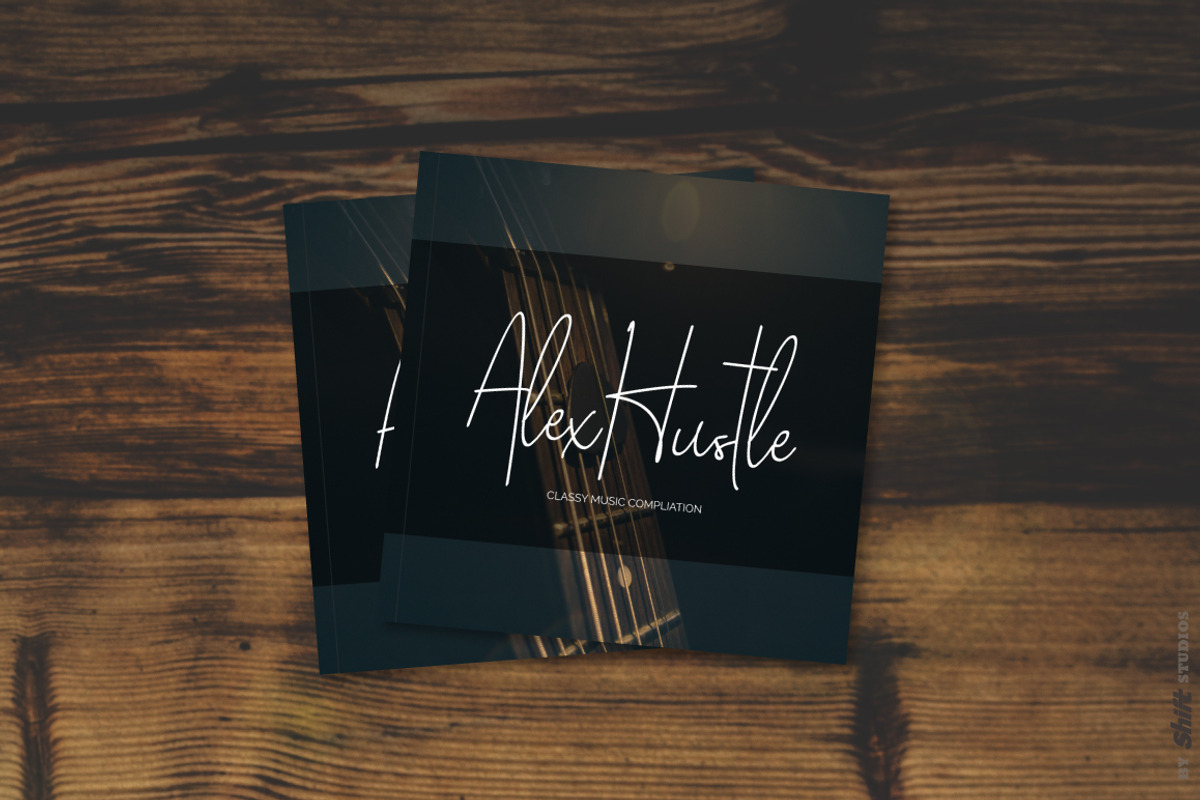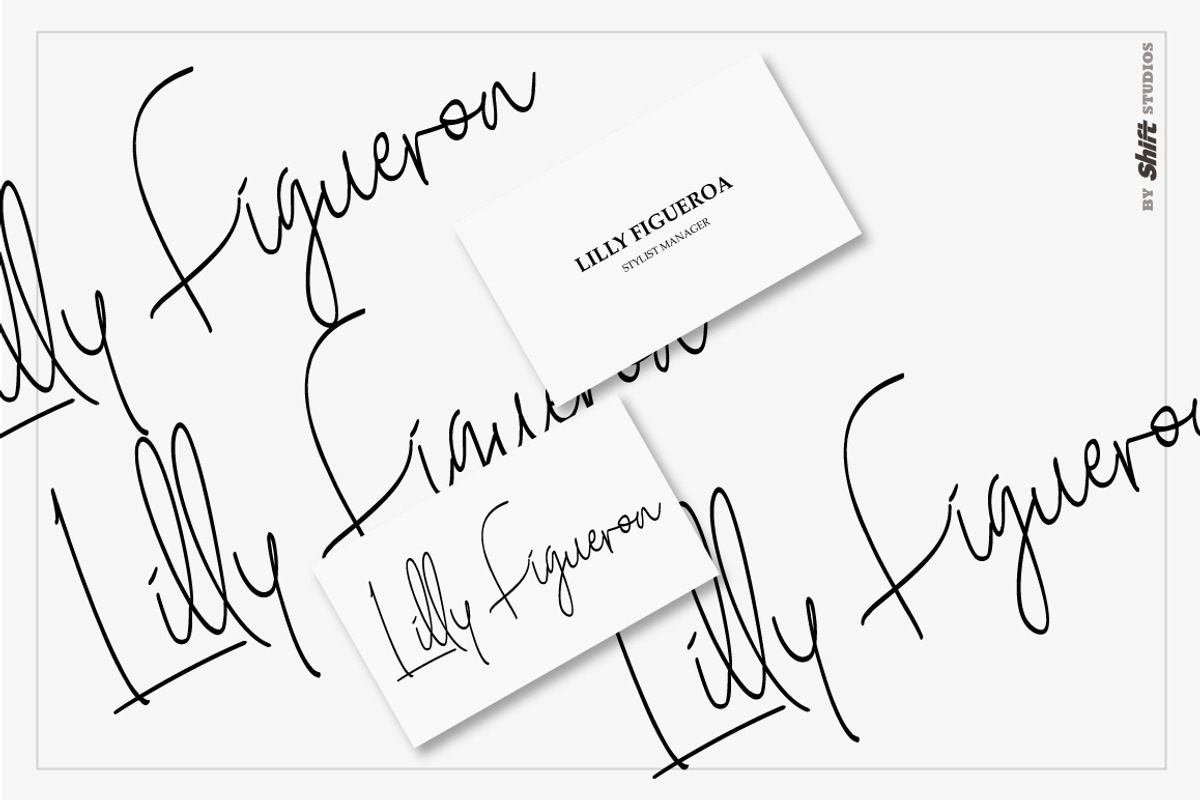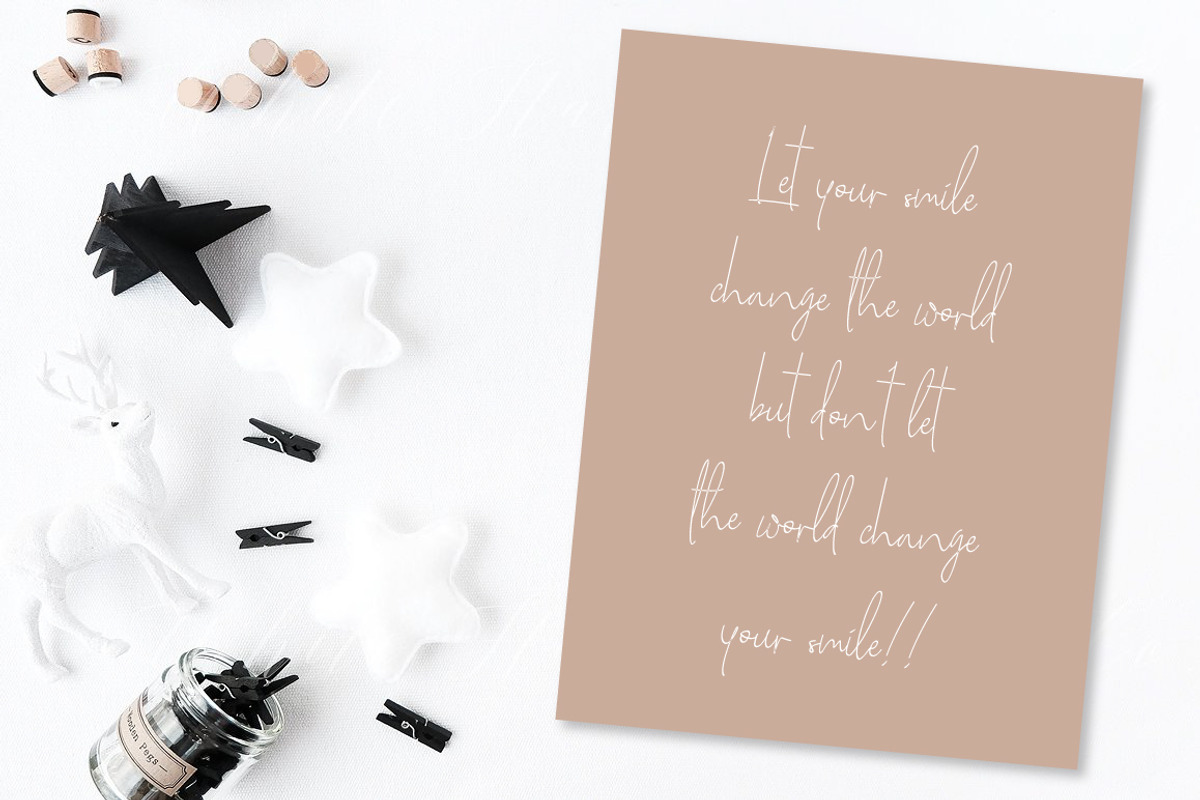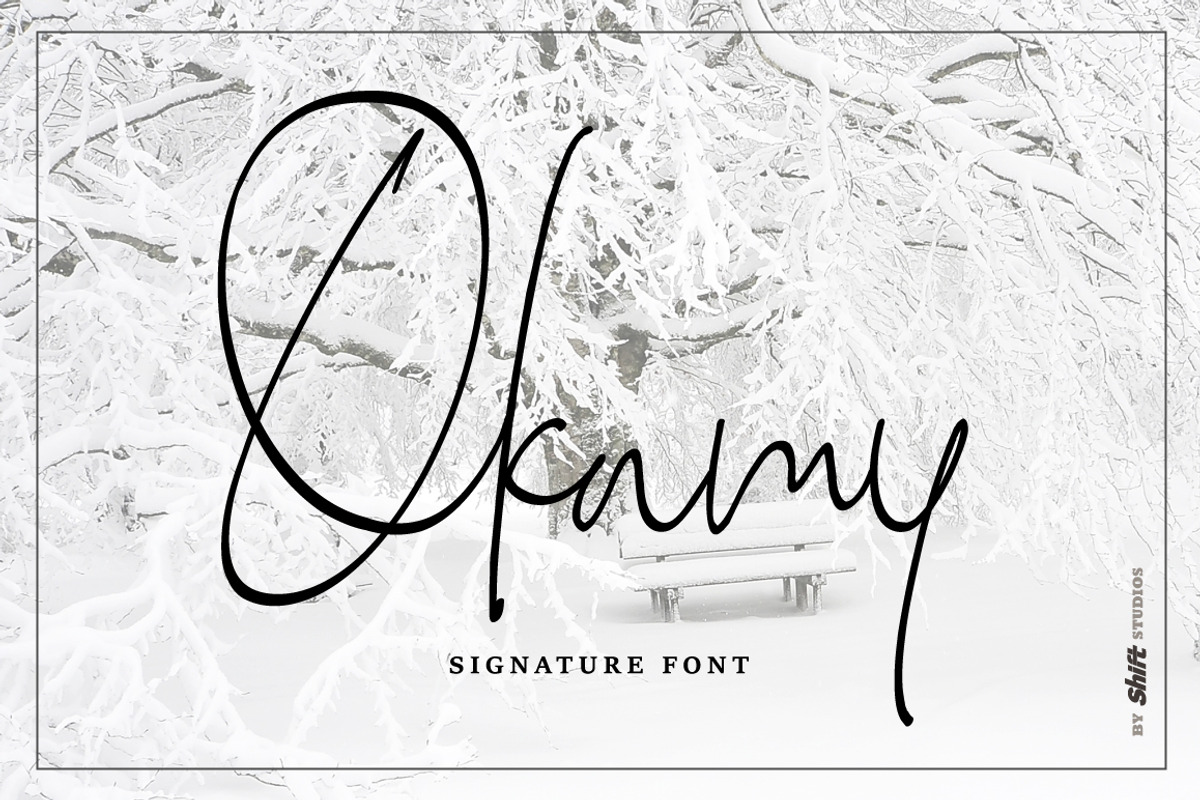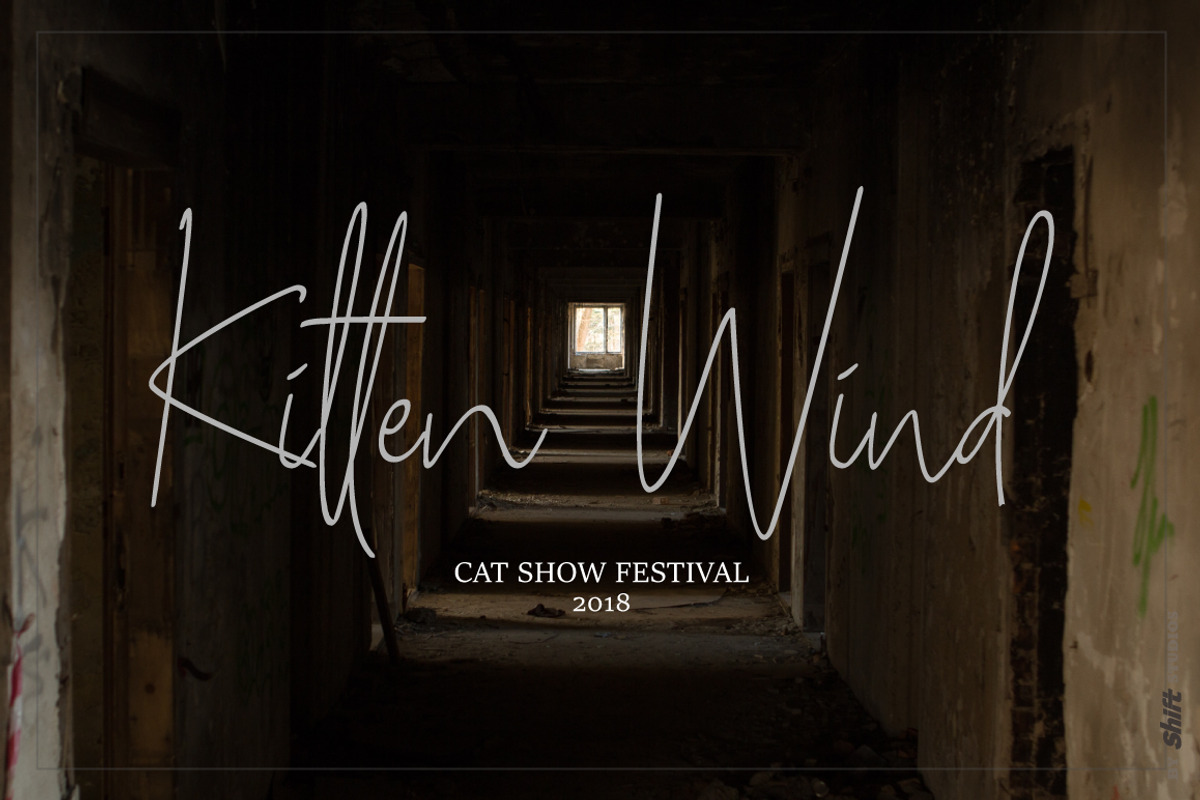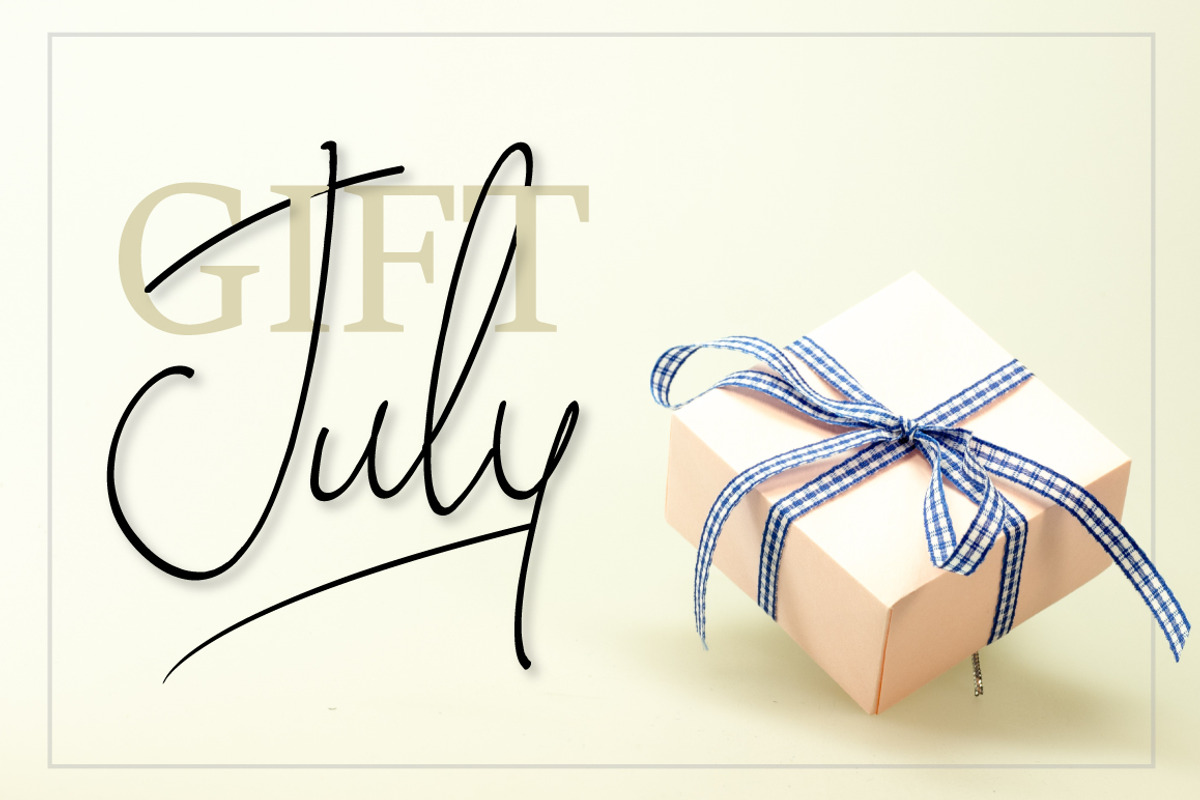
Okamy Typeface
Okamy font is a unique signature style and fast style handwriting font. This script font specifically developed for real handwriting looks and perfect also for A-Z signature in your personal branding.
Perfect for displays, headers, invitations, blogs, poster and so much more, Okamy will become a playful staple in your font collection!